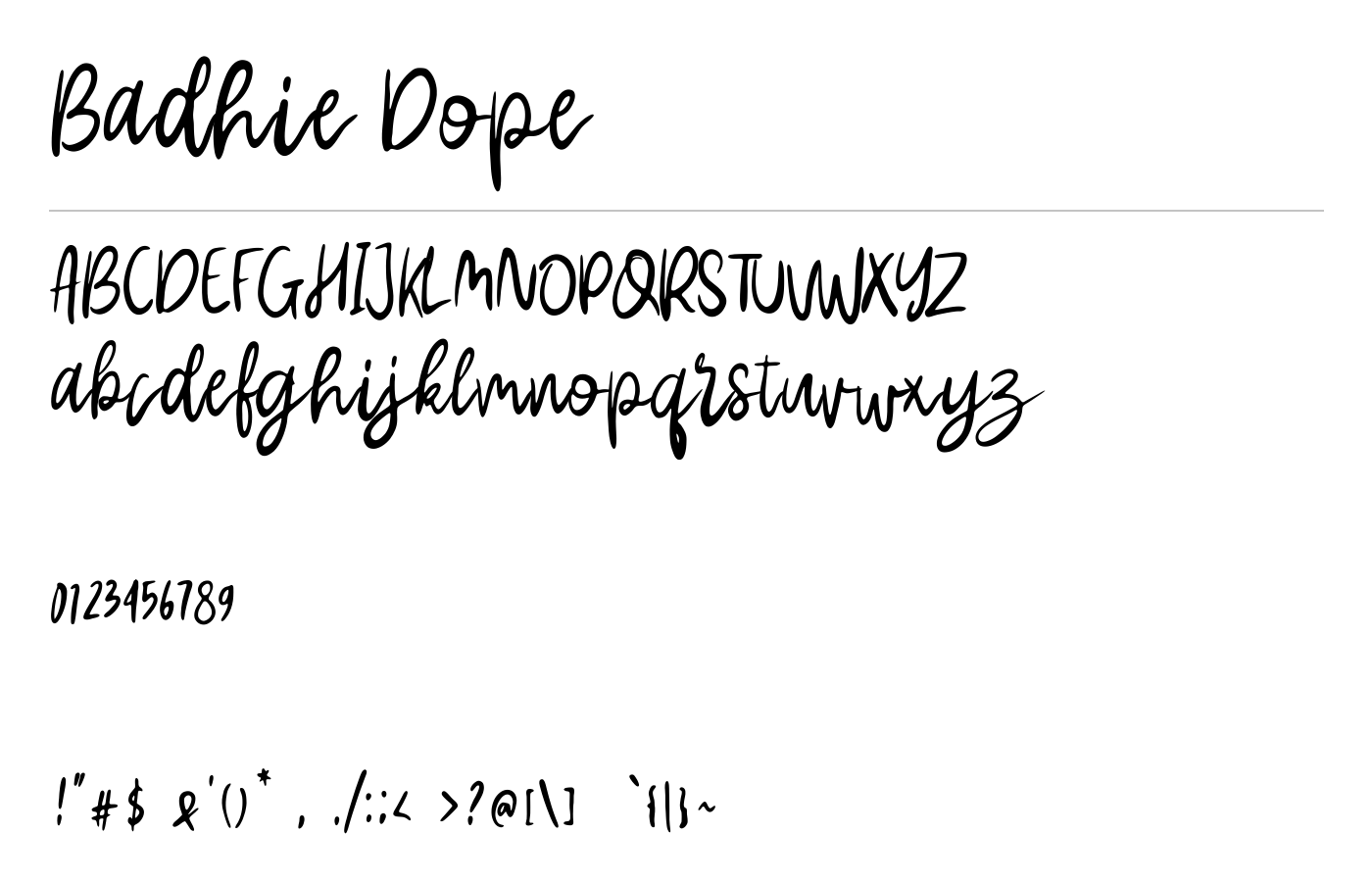
Badhie Dope is a casual handwritten script font with a playful and modern vibe, featuring smooth, flowing strokes and a slightly tall x-height for good readability. Its lively letterforms and informal style make it perfect for creative branding, social media graphics, and personal projects that want to convey a friendly, approachable personality. This font works especially well in headlines and logos where a relaxed yet stylish feel is desired.
Badhie Dope Font
About Badhie Dope Font
| Font family | Badhie Dope Font |
| Designer | Vunira Design |